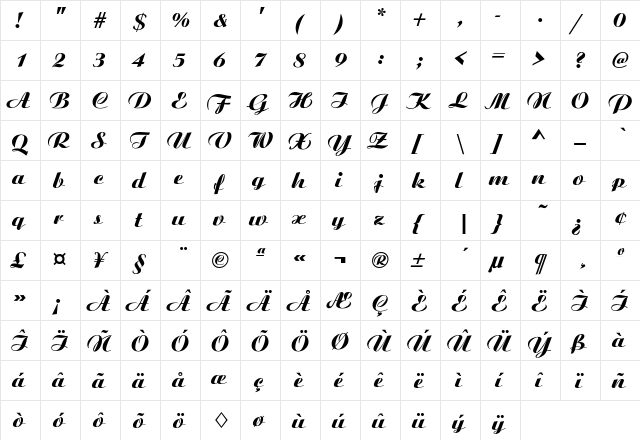
Oscar Regular
Design Context for Oscar Typeface
Oscar is a composed and adaptable typeface that performs quietly and consistently across a wide range of design contexts.